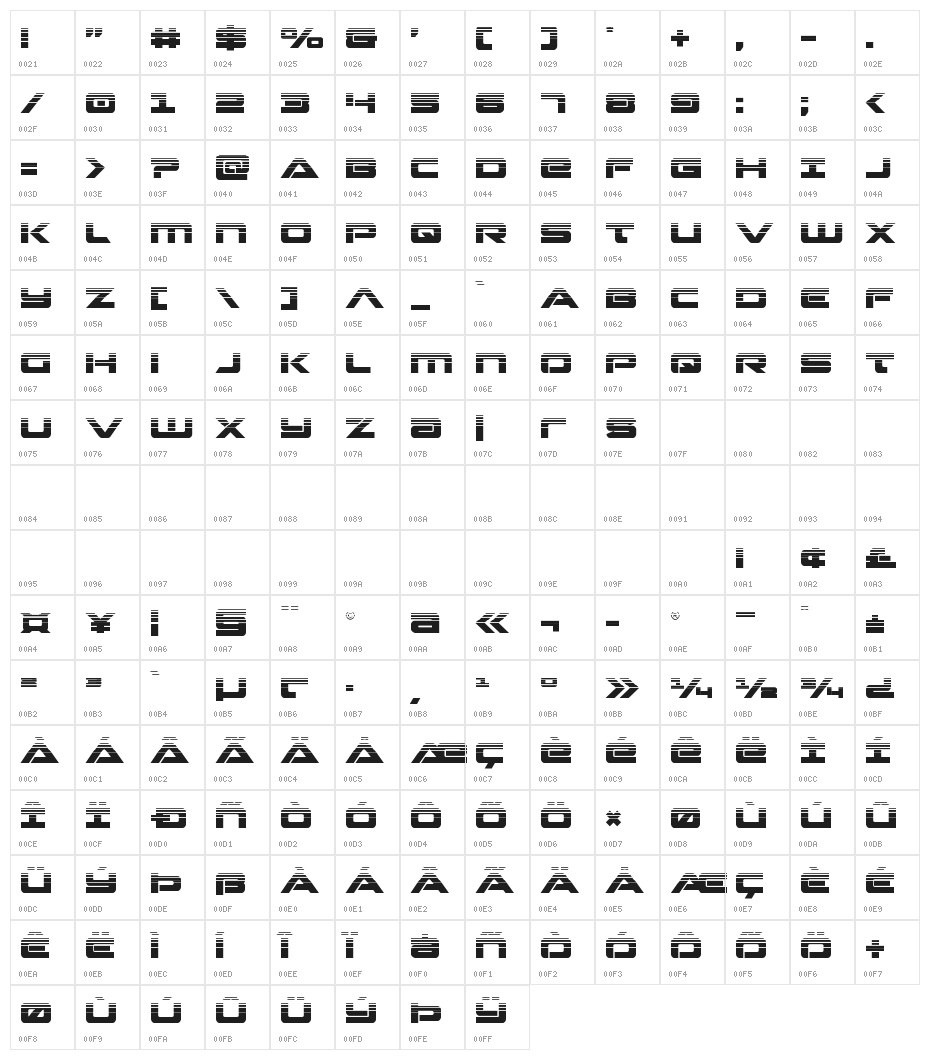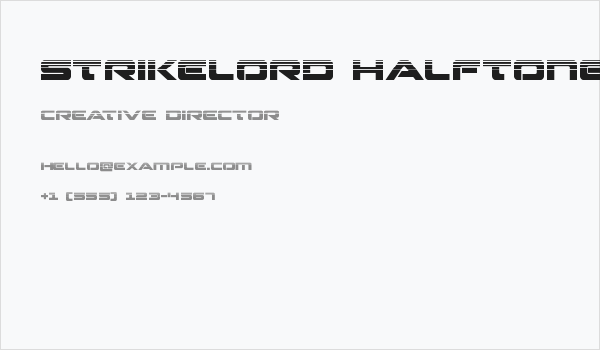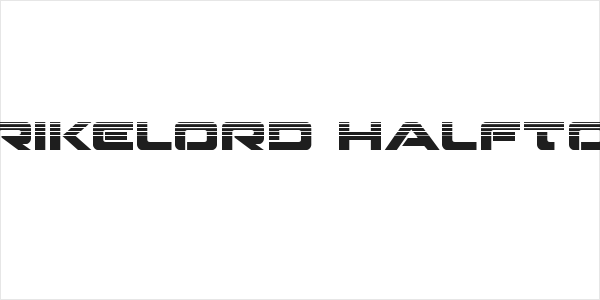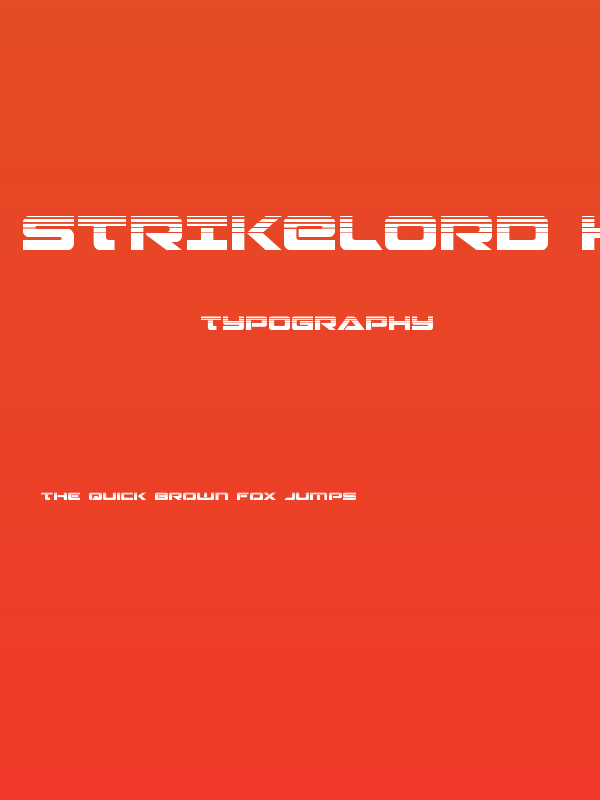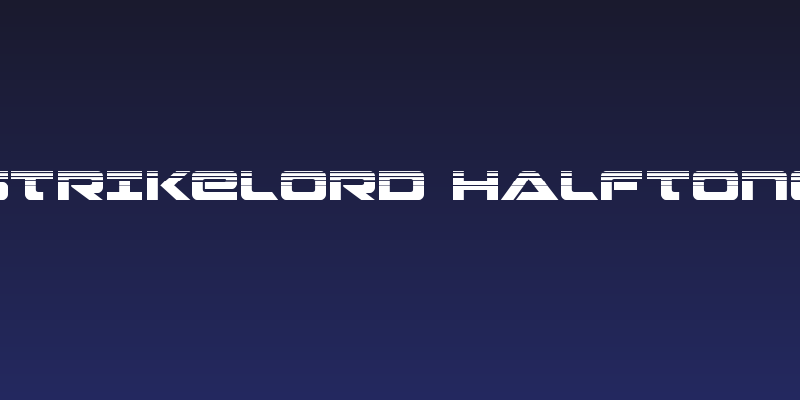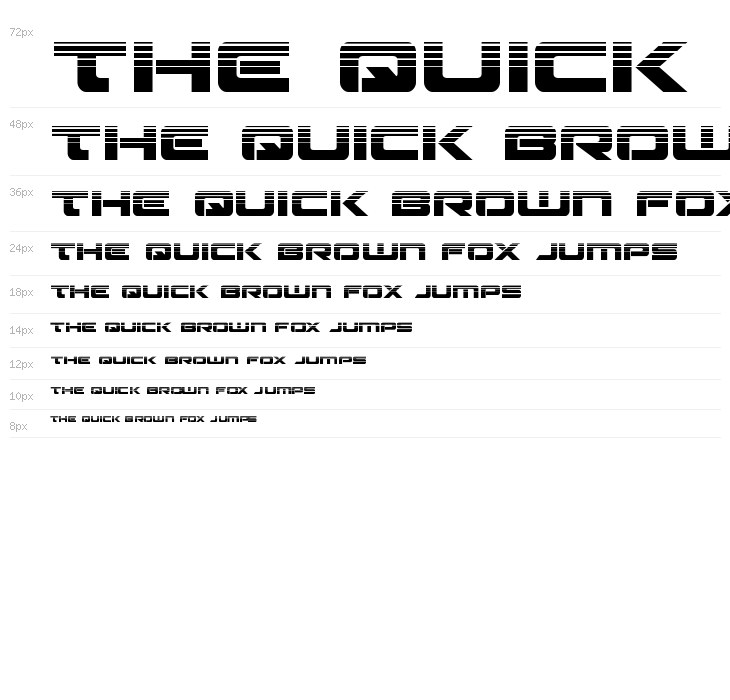
Strikelord Halftone Font
Strikelord Halftone Description
This font features a bold, futuristic design with a halftone effect that gives it a unique, layered appearance. The characters are constructed with horizontal lines that create a sense of movement and depth. The uppercase and lowercase letters maintain a consistent style, with sharp angles and geometric shapes. The numbers and special characters follow the same design principles, ensuring uniformity across the typeface. This font is ideal for projects that require a modern, tech-inspired look, such as digital media, gaming, and sci-fi themed designs.
| Proposed Projects | Ideal for digital media, gaming, sci-fi themes, and tech-inspired designs. |